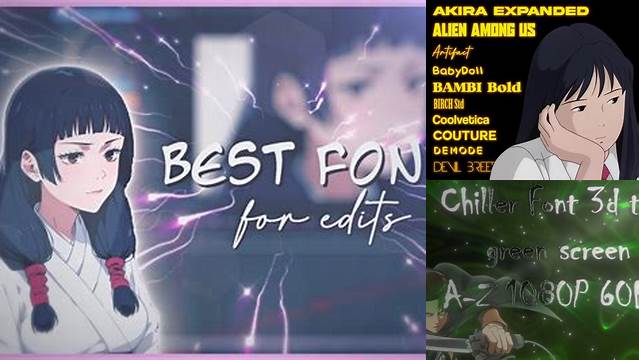
Best Fonts For AMVs: Make Your Anime Music Videos Pop!
Are you looking to elevate your Anime Music Videos (AMVs) with the perfect font choices? Choosing the right font is crucial for conveying the mood, style, and overall message of your AMV. It's the visual equivalent of tone of voice, and it can make or break the viewing experience. You guys probably know, a poorly chosen font can distract viewers, clash with the visuals, or even make the text illegible. On the flip side, a well-selected font enhances the impact of your video, complementing the music and animation seamlessly. In this article, we'll dive into the world of fonts ideal for AMVs, covering various styles and use cases to help you make the best decisions for your projects. So, whether you're aiming for a cute and bubbly feel, a dark and edgy vibe, or a clean and professional look, we've got you covered. We'll explore different font categories, specific font recommendations, and practical tips for using them effectively in your AMVs. So, let’s jump right in and discover the fonts that will make your AMVs shine!
Understanding Font Categories for AMVs
When selecting fonts for AMVs, it's essential to understand the different categories available and how they can contribute to the overall aesthetic of your video. There are several font categories, each with its unique characteristics and applications. Let's explore some of the most relevant categories for AMVs:
Serif fonts are characterized by the small decorative strokes, or serifs, at the end of letter strokes. These fonts are often perceived as traditional, formal, and elegant. They evoke a sense of history and authority, making them suitable for AMVs that aim for a classic or sophisticated feel. Think of them as the visual equivalent of a formal dinner party – refined and polished. Serif fonts can add a touch of class to your AMVs, but they may not always be the best choice for fast-paced or action-packed videos, where readability is paramount. Examples of popular serif fonts include Times New Roman, Garamond, and Georgia. While these are classic choices, they might feel a bit too formal for most AMVs. However, certain serifs with a more modern twist can work well, especially if your AMV has a dramatic or emotional tone. When using serif fonts, consider the overall design of your video. They pair well with elegant visuals and music that have a timeless quality. For instance, a romantic AMV set to a classical piece might benefit from a serif font to convey its grace and sophistication. On the other hand, a fast-paced action AMV might feel weighed down by a traditional serif. The key is to balance the formality of the font with the energy of the video.
Sans-serif fonts are fonts that lack the small decorative strokes (serifs) found in serif fonts. This gives them a clean, modern, and minimalist appearance. Sans-serif fonts are generally considered more readable on screens, making them a popular choice for digital media, including AMVs. They are versatile and can be used in a wide range of AMV styles, from upbeat and energetic to serious and dramatic. Think of sans-serif fonts as the Swiss Army knives of typography – adaptable and functional in various situations. Examples of popular sans-serif fonts include Arial, Helvetica, and Open Sans. However, for AMVs, you might want to explore more stylized sans-serif options that add personality without sacrificing readability. Fonts like Montserrat, Lato, and Roboto offer a contemporary feel and work well in a variety of contexts. The clean lines of sans-serif fonts make them excellent for subtitles, credits, and other text elements that need to be easily legible. They also pair well with a variety of visual styles, from vibrant and colorful to dark and moody. If your AMV has a lot of fast-paced action or quick cuts, a sans-serif font will ensure that your text remains clear and easy to read. Moreover, sans-serif fonts are a great choice for conveying a sense of modernity and innovation. If your AMV features futuristic themes or cutting-edge animation, a sans-serif font can help reinforce that aesthetic. The key is to choose a sans-serif font that complements the overall tone and style of your video, adding to the visual experience without overpowering it.
Script Fonts
Script fonts mimic the flowing strokes of handwriting and calligraphy. They can add a personal, elegant, or whimsical touch to your AMVs. These fonts are often used to convey emotions, romance, or a sense of nostalgia. However, script fonts can be challenging to read if overused or if the style is too intricate. Therefore, it’s crucial to use them sparingly and ensure they complement the visuals. Think of script fonts as the icing on the cake – a little goes a long way. Examples of script fonts include Brush Script, Pacifico, and Great Vibes. These fonts can bring a touch of artistry and flair to your AMVs, but they are best reserved for specific elements, such as titles or calligraphic flourishes, rather than large blocks of text. Using a script font for subtitles, for example, would likely make your video difficult to watch. When choosing a script font, consider the overall tone of your AMV. A delicate, flowing script can work beautifully for a romantic or sentimental video, while a bolder, more stylized script might suit a video with a more dramatic or artistic theme. It’s also essential to ensure that the script font you choose is legible, especially at smaller sizes. Opt for scripts that have clear, distinct letterforms and avoid those with excessive ornamentation that can obscure the text. In general, script fonts are best used in moderation to add a touch of elegance and personality to your AMVs. They can be a powerful tool for conveying emotions and creating a visual impact, but only when used thoughtfully and strategically.
Display Fonts
Display fonts are designed to grab attention and make a statement. They often have unique and eye-catching designs, making them ideal for titles, logos, and other prominent text elements in your AMVs. Display fonts come in a wide range of styles, from bold and geometric to quirky and playful, allowing you to find the perfect match for your video’s theme and mood. However, like script fonts, display fonts should be used sparingly, as they can be overwhelming if overused. Think of display fonts as the headline in a newspaper – designed to catch your eye and draw you in. Examples of display fonts include Impact, Bebas Neue, and Lobster. These fonts are perfect for making a strong visual impact, but they are not suitable for body text or subtitles. When selecting a display font, consider the overall message and style of your AMV. A bold, geometric font might be ideal for a high-energy action video, while a whimsical, hand-drawn font could be perfect for a lighthearted or comedic AMV. It’s also important to ensure that the display font you choose complements the other fonts in your video. Avoid using too many different display fonts, as this can create a cluttered and chaotic look. Instead, choose one or two display fonts that work well together and use them consistently throughout your video. Display fonts are a fantastic way to add personality and visual interest to your AMVs. They can help you create a memorable and impactful title sequence or emphasize key messages. Just remember to use them judiciously and ensure they enhance rather than detract from the overall viewing experience.
Top Font Recommendations for AMVs
Now that we've covered the main font categories, let's dive into some specific font recommendations that work exceptionally well for AMVs. These fonts have been chosen for their readability, versatility, and aesthetic appeal. Whether you're aiming for a sleek, modern look or a more artistic and expressive style, there's a font on this list that will suit your needs. Remember, the best font for your AMV will depend on the specific tone, theme, and visuals of your video. So, feel free to experiment and find the perfect match!
Montserrat
Montserrat is a clean and modern sans-serif font that offers excellent readability and versatility. It’s a popular choice for digital media due to its clear letterforms and balanced design. Montserrat works well in a variety of AMV styles, from action-packed sequences to emotional narratives. Its simplicity makes it ideal for subtitles, credits, and titles. Guys, this font really shines when you need something that’s both functional and stylish. One of the great things about Montserrat is its range of weights, from thin to black, which allows you to create visual hierarchy and add emphasis where needed. You can use the bolder weights for titles and headings and the lighter weights for body text and captions. This ensures that your text remains legible and visually appealing. Montserrat also pairs well with other fonts, making it easy to integrate into your overall design. You can combine it with a script or display font for titles to add a touch of personality while maintaining readability in the main text. For instance, using Montserrat for subtitles and a decorative script font for the title can create a balanced and professional look. If you're looking for a reliable and versatile sans-serif font that can handle a wide range of AMV styles, Montserrat is an excellent choice. It’s a font that you can confidently use in any project, knowing that it will look great and be easy to read. It's a true workhorse in the world of typography, and you'll find it's a valuable asset in your AMV-making toolkit.
Bebas Neue
Bebas Neue is a tall and condensed sans-serif font that exudes a modern and stylish vibe. Its narrow letterforms make it an excellent choice for titles and headings, especially when you need to save space. Bebas Neue is bold and impactful, making it perfect for AMVs with a strong visual presence. This font is particularly well-suited for action, sports, or music-themed AMVs. Its clean lines and geometric shapes give it a contemporary feel that pairs well with dynamic visuals and energetic soundtracks. The condensed nature of Bebas Neue allows you to fit more text into a smaller space without sacrificing readability. This is especially useful for titles and credits, where you may need to include a lot of information. You can use Bebas Neue for titles, lower thirds, and end screens to create a consistent and professional look throughout your AMV. While Bebas Neue is primarily a display font, it can also be used sparingly for short blocks of text. However, it’s not ideal for subtitles or large paragraphs due to its condensed form. If you need a font for body text, consider pairing Bebas Neue with a more legible sans-serif font like Open Sans or Lato. Bebas Neue is a fantastic choice for AMV creators who want to make a bold statement. Its modern and stylish design will help your titles and headings stand out, ensuring that your message is clear and impactful. It's a font that commands attention and adds a touch of sophistication to any project.
Impact
Impact is a classic display font known for its bold and attention-grabbing appearance. Its thick, heavy strokes make it ideal for titles and headings that need to stand out. Impact is a timeless font that works well in a variety of contexts, but it's particularly effective for AMVs with a strong, assertive tone. This font is perfect for action-packed videos, trailers, and any project where you want to make a powerful statement. Its bold letterforms command attention and ensure that your message is clear and impactful. Impact is also a great choice for creating a sense of urgency or excitement. If you want to convey a feeling of high energy and intensity, Impact is the perfect font to use. However, due to its bold nature, Impact should be used sparingly. It’s not suitable for body text or subtitles, as its heavy strokes can become overwhelming when used in large blocks of text. Instead, reserve Impact for titles, headings, and other prominent text elements. When using Impact, consider pairing it with a cleaner, more legible font for body text. A simple sans-serif font like Arial or Helvetica can provide a nice contrast and ensure that your overall design remains balanced. Impact is a versatile font that can be used in a variety of creative ways. You can experiment with different colors, outlines, and effects to customize its appearance and make it even more impactful. If you need a font that can deliver a punch, Impact is the go-to choice. Its bold and assertive design will help your titles and headings stand out, ensuring that your message is heard loud and clear.
Pacifico
Pacifico is a casual and friendly script font that adds a touch of personality and warmth to your AMVs. Its flowing, handwritten style makes it perfect for titles, logos, and other design elements that need a personal touch. Pacifico is particularly well-suited for AMVs with a lighthearted, whimsical, or romantic theme. This font evokes a sense of nostalgia and creativity, making it ideal for projects that aim to connect with viewers on an emotional level. Its rounded letterforms and gentle curves give it a friendly and approachable feel, making it a great choice for titles and headings. Pacifico is also a popular font for logos and branding, as it conveys a sense of authenticity and personality. If you want your AMV to have a unique and memorable look, Pacifico is an excellent choice. However, like other script fonts, Pacifico should be used sparingly. It’s not ideal for body text or subtitles, as its flowing strokes can become difficult to read in large blocks of text. Instead, reserve Pacifico for titles, headings, and other design elements where you want to add a touch of flair. When using Pacifico, consider pairing it with a cleaner, more legible font for body text. A simple sans-serif font like Montserrat or Open Sans can provide a nice contrast and ensure that your overall design remains balanced. Pacifico is a versatile font that can be used in a variety of creative ways. You can experiment with different colors, sizes, and effects to customize its appearance and make it even more unique. If you're looking for a script font that's both stylish and approachable, Pacifico is a fantastic choice. Its casual and friendly design will help your AMVs stand out and connect with your audience.
Open Sans
Open Sans is a highly legible and neutral sans-serif font that works well in a wide range of contexts. Its clean and minimalist design makes it an excellent choice for body text, subtitles, and other text elements that need to be easily readable. Open Sans is a versatile font that can be used in any AMV style, from formal and professional to casual and creative. This font is designed for readability, making it ideal for situations where clarity is paramount. Its open letterforms and balanced proportions ensure that text remains legible even at small sizes. Open Sans is also a great choice for subtitles, as it doesn't distract from the visuals and is easy to read quickly. In addition to body text and subtitles, Open Sans can also be used for headings and captions. Its neutral design makes it a versatile choice that can complement a variety of other fonts. You can pair Open Sans with a bolder display font for titles or a script font for accents to create a balanced and visually appealing design. When using Open Sans, you can experiment with different weights and styles to create visual hierarchy and add emphasis where needed. The regular and bold weights are ideal for body text and headings, while the light and extra-bold weights can be used for captions and accents. Open Sans is a go-to font for many designers and creators due to its versatility and readability. If you need a font that can handle a variety of text elements without overpowering your visuals, Open Sans is an excellent choice. Its clean and minimalist design will ensure that your message is clear and easy to read, making it a valuable asset in your AMV-making toolkit.
Tips for Using Fonts Effectively in AMVs
Choosing the right fonts is only half the battle. To truly make your AMVs stand out, you need to use fonts effectively. This involves considering factors such as readability, contrast, placement, and animation. Here are some practical tips to help you make the most of your font choices:
- Prioritize Readability: The most beautiful font in the world is useless if no one can read it. Always prioritize readability when selecting fonts for your AMVs, especially for subtitles and body text. Choose fonts with clear letterforms and avoid overly decorative or stylized fonts that can obscure the text. Test your font choices at different sizes and resolutions to ensure they remain legible on various devices.
- Create Contrast: Contrast is key to making your text stand out against the background visuals. Use contrasting colors to ensure that your text is easily visible. For example, white text on a dark background or dark text on a light background. You can also use outlines or shadows to add contrast and make your text pop. Experiment with different color combinations to find what works best for your chosen font and visuals.
- Consider Placement: Where you place your text on the screen can significantly impact its readability and overall impact. Avoid placing text in areas with a lot of visual clutter or where it will be obscured by foreground elements. Choose clean and uncluttered areas of the screen for your text, such as the bottom or top of the frame. You can also use lower thirds or title cards to create dedicated spaces for your text.
- Use Animation Sparingly: Text animation can add a dynamic touch to your AMVs, but it's important to use it sparingly. Overusing animation can be distracting and make your text difficult to read. Stick to simple animations, such as fades or slides, and avoid overly complex or flashy effects. Make sure that the animation enhances the text rather than detracts from it.
- Limit Font Choices: While it can be tempting to use a variety of fonts in your AMVs, it's best to limit your choices to two or three fonts at most. Using too many fonts can create a cluttered and unprofessional look. Choose a primary font for body text and subtitles and a secondary font for titles and headings. Ensure that your chosen fonts complement each other and create a cohesive visual style.
- Maintain Consistency: Consistency is key to creating a polished and professional-looking AMV. Use the same fonts and styles throughout your video to maintain a consistent visual identity. This includes using the same font sizes, colors, and effects for similar text elements. Consistency helps to create a sense of order and makes your video more visually appealing.
- Test Your Choices: Before finalizing your font choices, test them on different devices and screens to ensure they look good in a variety of contexts. What looks great on your computer monitor might not look as good on a mobile device or a television screen. Check your text for readability and clarity on different platforms and make adjustments as needed.
By following these tips, you can use fonts effectively to enhance your AMVs and create a visually compelling viewing experience. Remember, the goal is to make your text readable, engaging, and consistent with the overall style and tone of your video. With careful planning and attention to detail, you can use fonts to elevate your AMVs and make them truly stand out.
Selecting the right fonts for your AMVs is crucial for conveying the desired mood and message. By understanding different font categories and exploring specific font recommendations, you can enhance the visual appeal of your videos. Remember to prioritize readability, create contrast, and use fonts consistently. Experiment with various fonts and techniques to discover what works best for your style and project goals. With the right fonts, your AMVs can captivate viewers and leave a lasting impression. So guys, go out there and make your AMVs shine with the perfect font choices! Happy editing!